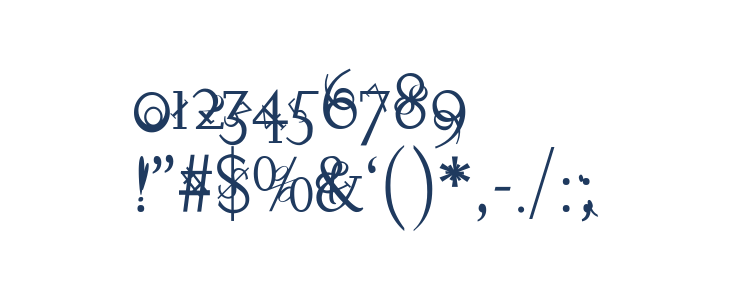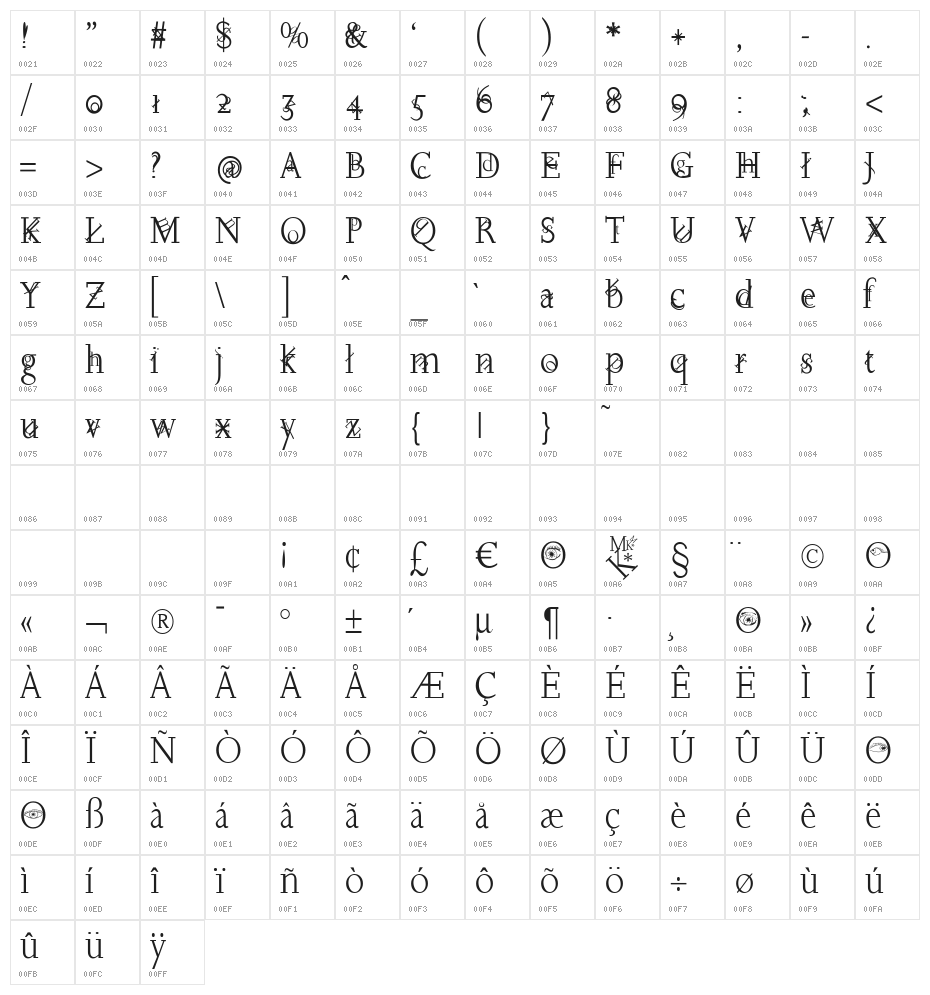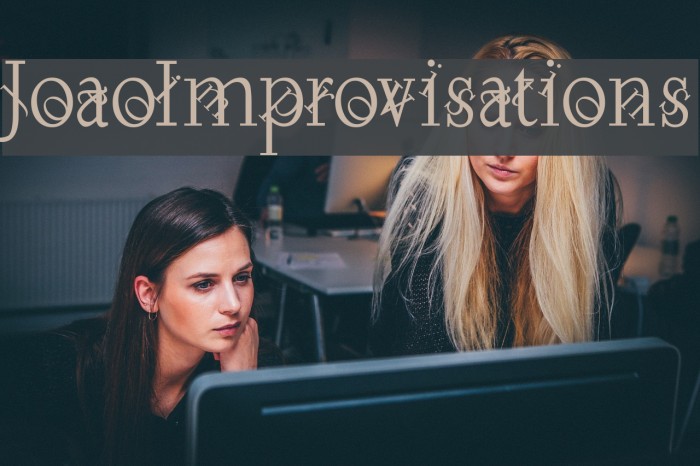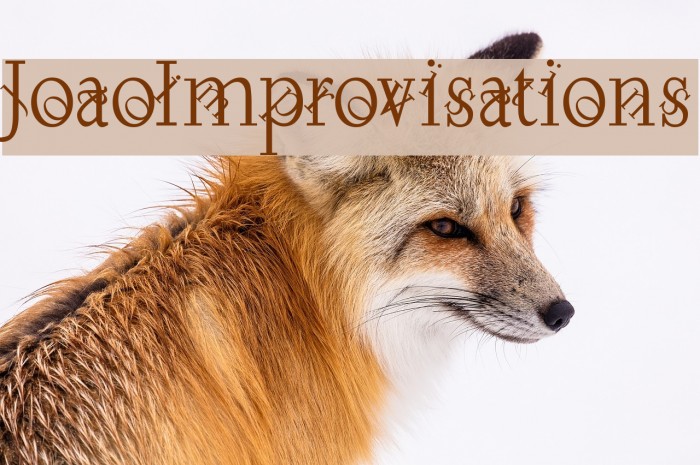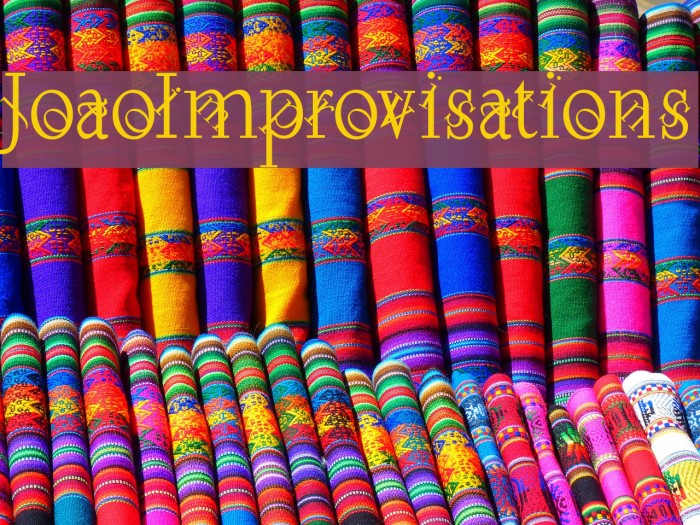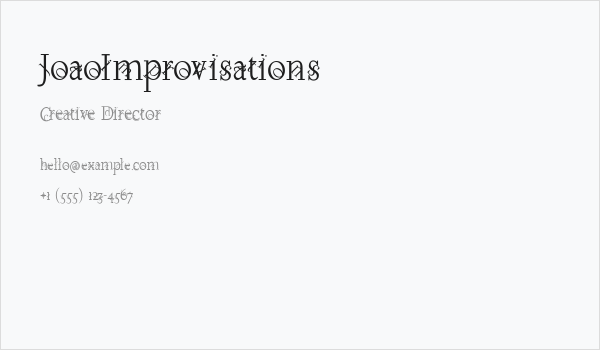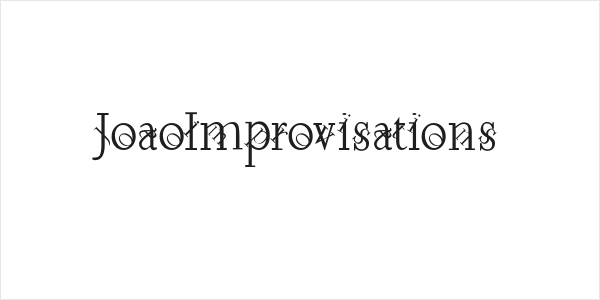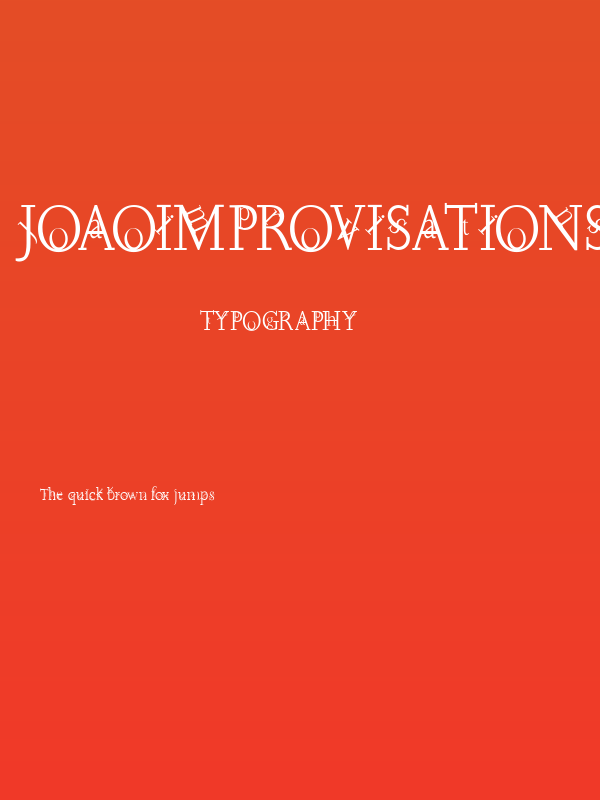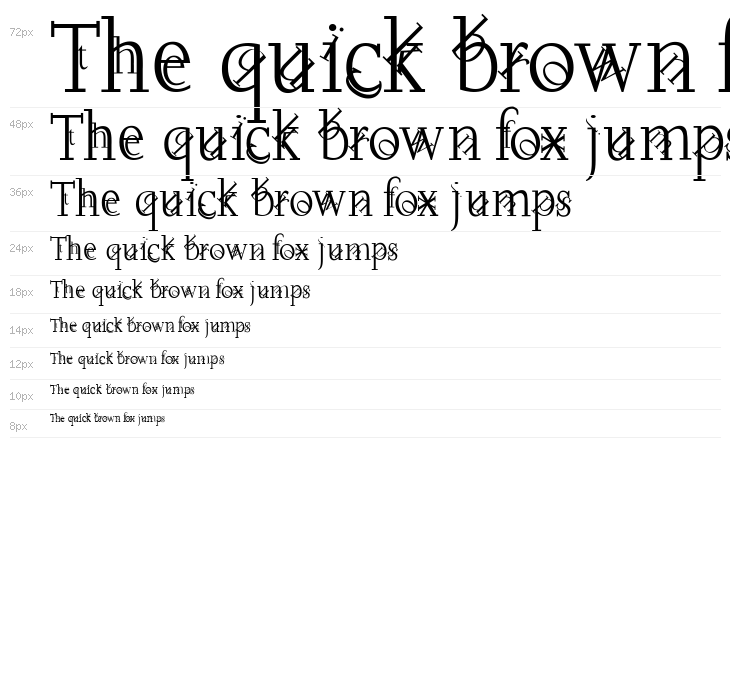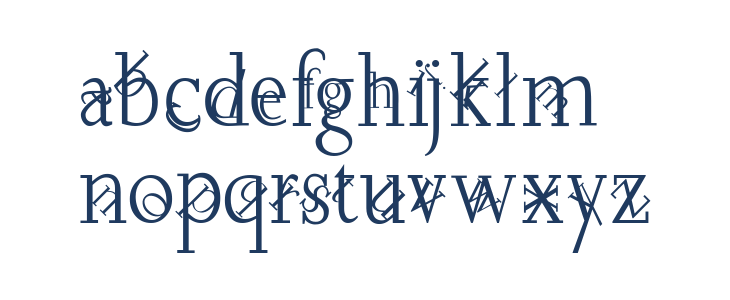
JoaoImprovisations Font
JoaoImprovisations Description
This font presents a unique and artistic style, characterized by overlapping and intersecting lines that create a sense of movement and complexity. The uppercase letters are bold and dynamic, with each character featuring distinct embellishments that give it a decorative flair. The lowercase letters maintain this intricate design, offering a cohesive look across the alphabet. Numbers and special characters follow the same artistic approach, ensuring consistency throughout. The font's overall appearance is both modern and avant-garde, making it stand out in any design context.
| Overall Style | Modern, Avant-garde |
| Use Case | Headlines, Logos, Artistic displays |
| Proposed Projects | Ideal for artistic projects, modern posters, album covers, and creative branding. |